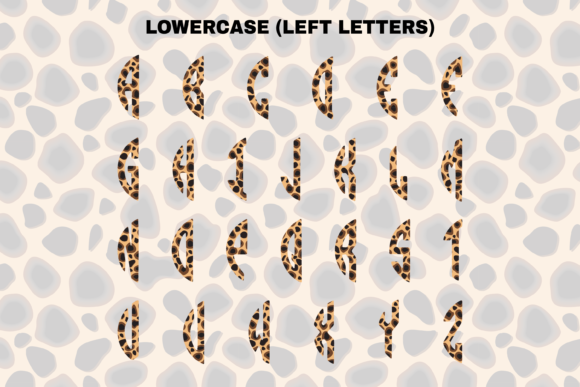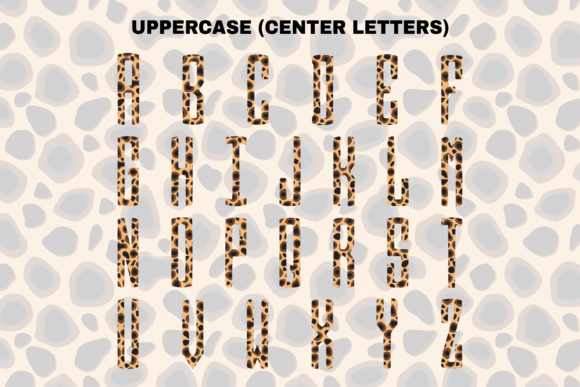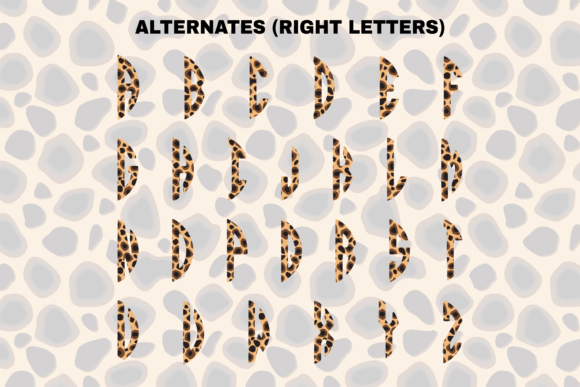
About Cheetah Circle Font
Cheetah Split sounds like a fun and captivating font that incorporates cute Cheetah-themed elements. With its unique design and playful features, it can add a touch of excitement to your projects. Here are some key features and potential uses for Cheetah Split:
1. Playful Design: The inclusion of cute Cheetah-themed elements gives Cheetah Split a distinct and lively appearance. It brings a sense of energy and playfulness to your designs, making them visually engaging and appealing.
2. Versatility: Cheetah Split’s versatility allows it to be used in various design projects. Whether you’re creating custom designs, DIY crafts, greeting cards, posters, or social media graphics, this font can add a delightful touch to your creations.
3. Eye-catching Details: The unique Cheetah-themed elements within the font make it stand out and capture attention. These details can be utilized creatively to highlight specific words or phrases, adding visual interest and drawing the viewer’s eye.
4. Customization Options: Depending on the font, you may have access to different ligatures, alternate characters, or stylistic variations that allow for further customization. These features can help you create unique combinations or decorative elements within your designs.